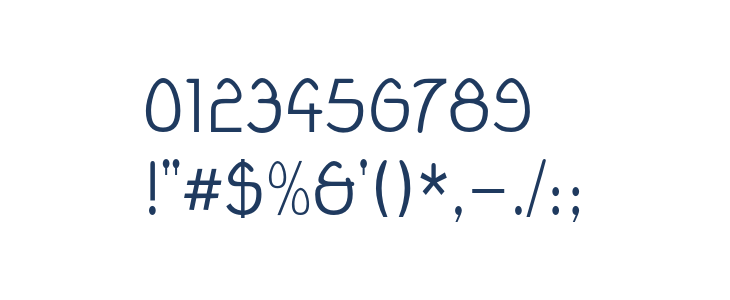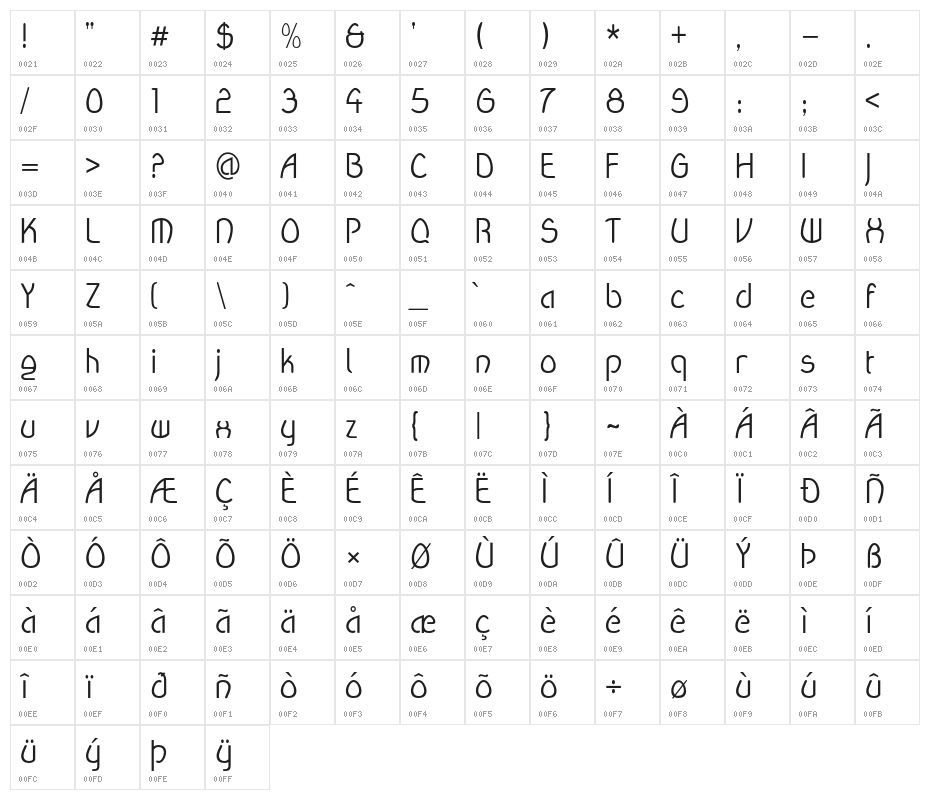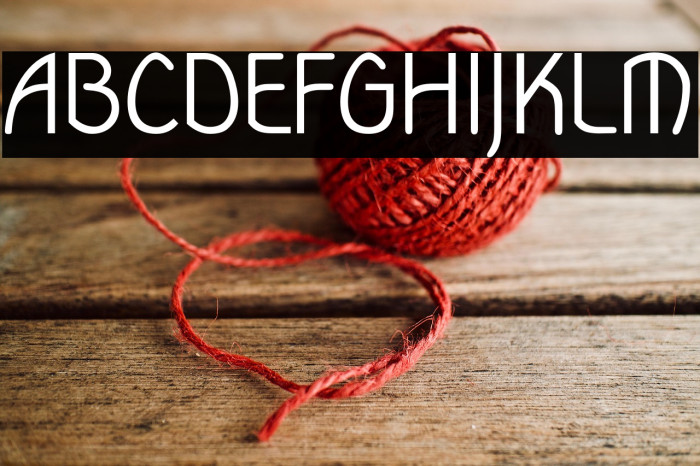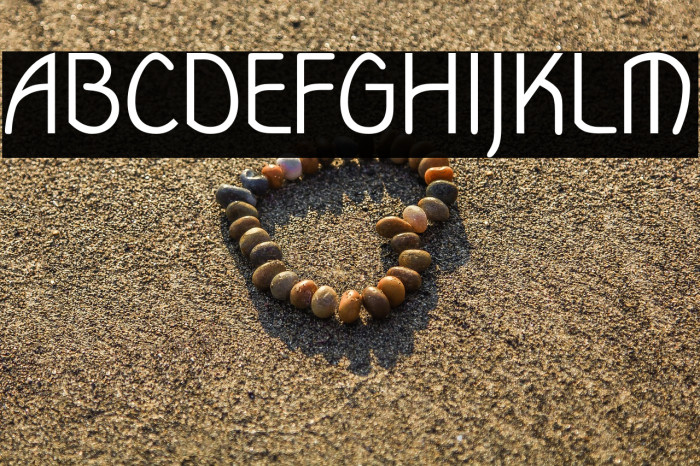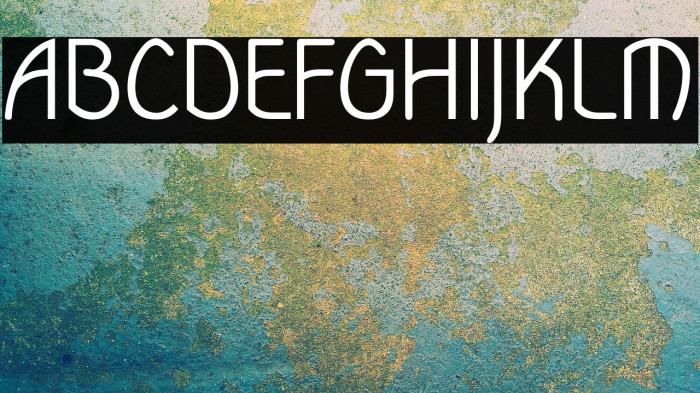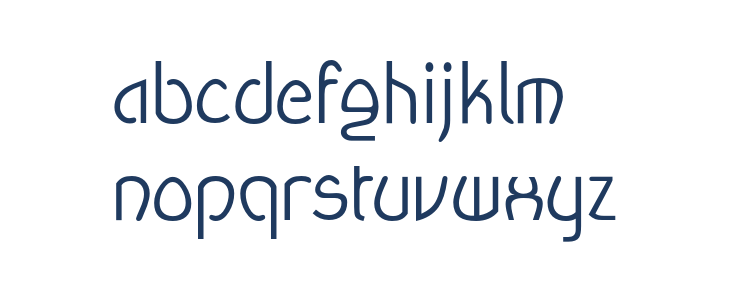
Wanda Font
Wanda Description
This font features a modern and futuristic design with a unique blend of geometric and rounded elements. The uppercase letters have a distinct, elongated form with smooth curves and sharp angles, creating a sleek and sophisticated appearance. The lowercase letters maintain a consistent style, offering a harmonious balance between form and function. The numerals are clear and easy to read, with a similar geometric influence. Special characters are well-integrated, maintaining the font's overall aesthetic. This typeface is ideal for projects that require a contemporary and innovative look.
| Use Case | Headlines, Logos, Digital Media |
| Proposed Projects | Ideal for tech branding, futuristic designs, digital media, and modern advertising. |